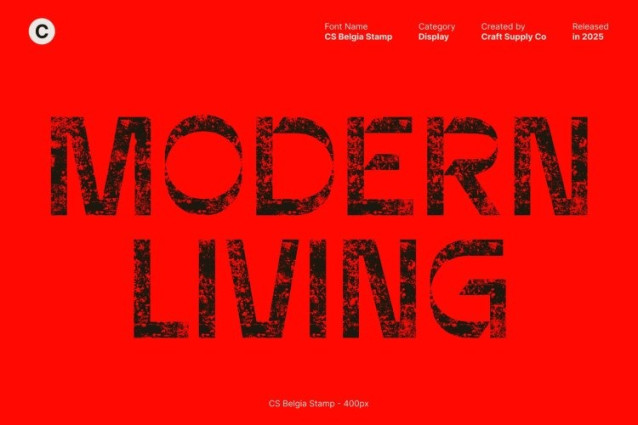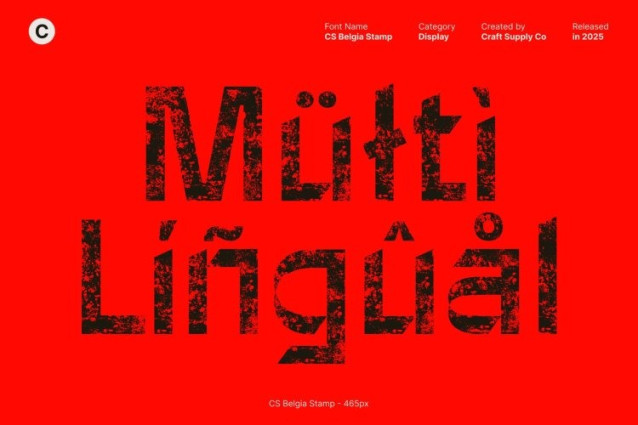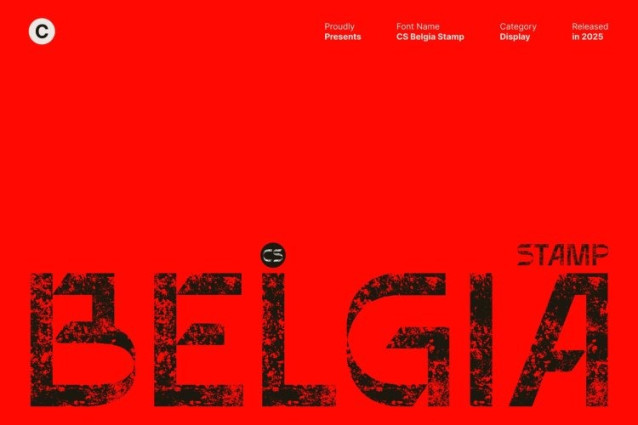
CS Belgia Stamp Font
CS Belgia Stamp Font This is a modern display sans serif font crafted with bold, striking letterforms that immediately command attention. Its clean geometry and powerful weight create a confident contemporary look, perfect for designers who want their visuals to feel sharp, current, and unmistakably strong.
Artistic Stamp Texture for Lively, Expressive Character
Enhancing its bold structure, features a unique stamp texture that adds depth, warmth, and personality. The textured finish gives each letter a handcrafted, artistic vibe that feels alive and expressive. Instead of a flat, polished appearance, the stamp effect introduces visual movement and creative flair making your designs more dynamic and memorable.
Perfect Balance of Weight and Handcrafted Detail
The combination of prominent weight, clean sans serif styling, and manual texture detailing creates a font that feels both modern and artistic. This font maintains excellent readability while offering a distinctive visual twist. Its sturdy form ensures clarity, while the textured elements inject creativity, making it suitable for projects that demand both precision and style.
Ideal for Posters, Branding, Headlines, and Creative Displays
This font excels in display use, bringing boldness and originality to posters, branding identities, headlines, merchandise, and expressive layouts. Whether you’re developing impactful marketing visuals or crafting an eye-catching creative project, this font adds energy and personality.